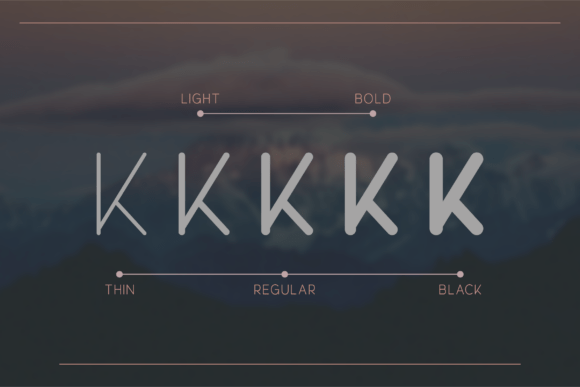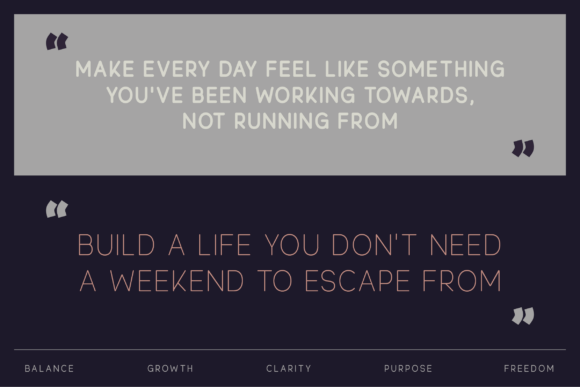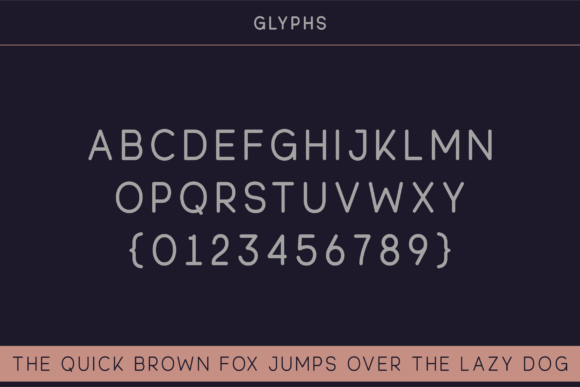
Unleash Your Creative Fierceness
Imagine you’re brainstorming ideas for your brand’s new logo. You’re surrounded by sketches, color palettes, and typography samples, but nothing seems to capture the essence of your unique identity. Suddenly, a font catches your eye – its bold personality and soft-rounded edges radiate confidence and friendliness. This is the moment when the right font can make all the difference, and for designers, crafters, and brand creators, Fierceness Rounded Font is an invaluable tool to achieve a clean yet friendly visual identity.
Fierceness Rounded Font is a modern all-caps sans serif font family designed to bring clarity and warmth to your creative projects. With its sleek, geometric construction and five versatile weights, this font adapts beautifully to any design need, from logos and packaging to social media visuals and high-impact headlines.
Fierceness Rounded Font Key Features
- Unique Characteristics: Distinctive rounded edges and bold lines, giving the font a modern and edgy feel, perfect for making a statement.
- Legibility: Optimized for readability, with clear letterforms and a well-balanced x-height, ensuring that the text remains easy to read at various sizes.
- Language Support: Comprehensive support for multiple languages, including Latin, Cyrillic, and Greek scripts, making it a versatile choice for global audiences.
Fierceness Rounded Font Review
I recently had the chance to work with the Fierceness Rounded Font, and I’m excited to share my honest review. ✨ One thing that really stands out about this font is its unique blend of edginess and friendliness. It’s perfect for projects that need a touch of sophistication without sacrificing approachability.
From a technical standpoint, the font is well-structured and easy to use. The rounded edges add a nice touch of warmth, making it perfect for designs that need to convey a sense of approachability. ✨ The font also comes in a range of weights, making it versatile for use in headings, body text, and even logos.
While the Fierceness Rounded Font is overall a solid choice, there are a few limitations to consider. ⚠️ One thing that stands out is the limited language support. If you need to use the font for languages that require more complex character sets, you may find it lacking.
Overall, I’m impressed with the Fierceness Rounded Font. It’s a great choice for projects that need a unique, yet approachable look. While it may have some limitations, its strengths make it a solid addition to any designer’s toolkit.
- Unique blend of edginess and friendliness
- Well-structured and easy to use
- Rounded edges add warmth and approachability
- Range of weights for versatility
- Limited language support
Fierceness Rounded Font Practical Application Guide
Fierceness Rounded Font is ideal for:
- Social media graphics and advertising
To get the most out of Fierceness Rounded Font, consider the following tips:
- Use it in conjunction with other rounded fonts for a cohesive look
- Experiment with different